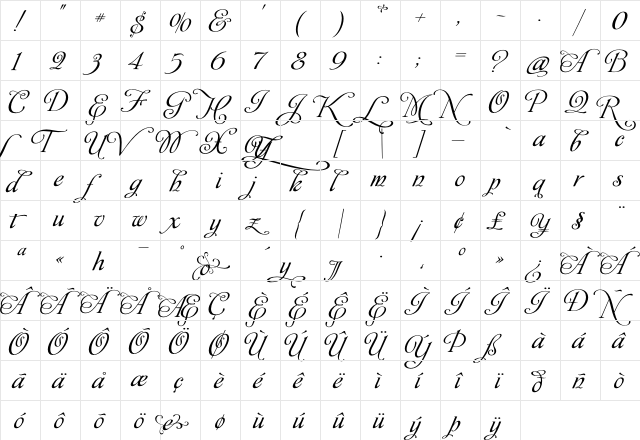
Affair Regular
| Foundry | Alejandro Paul |
| Designer | Alejandro Paul |
Design Context for Affair Typeface
Affair is a composed and adaptable typeface that performs quietly and consistently across a wide range of design contexts.